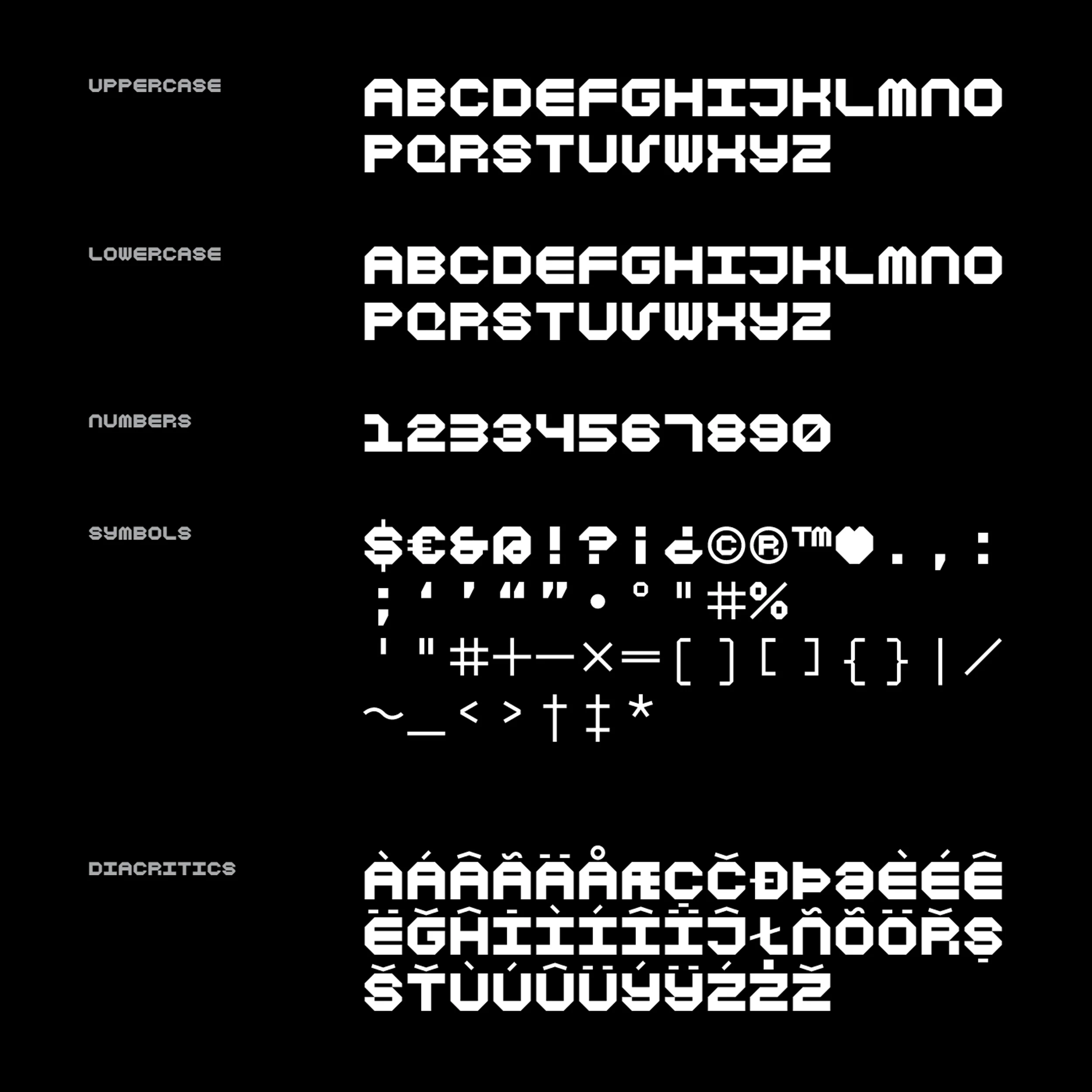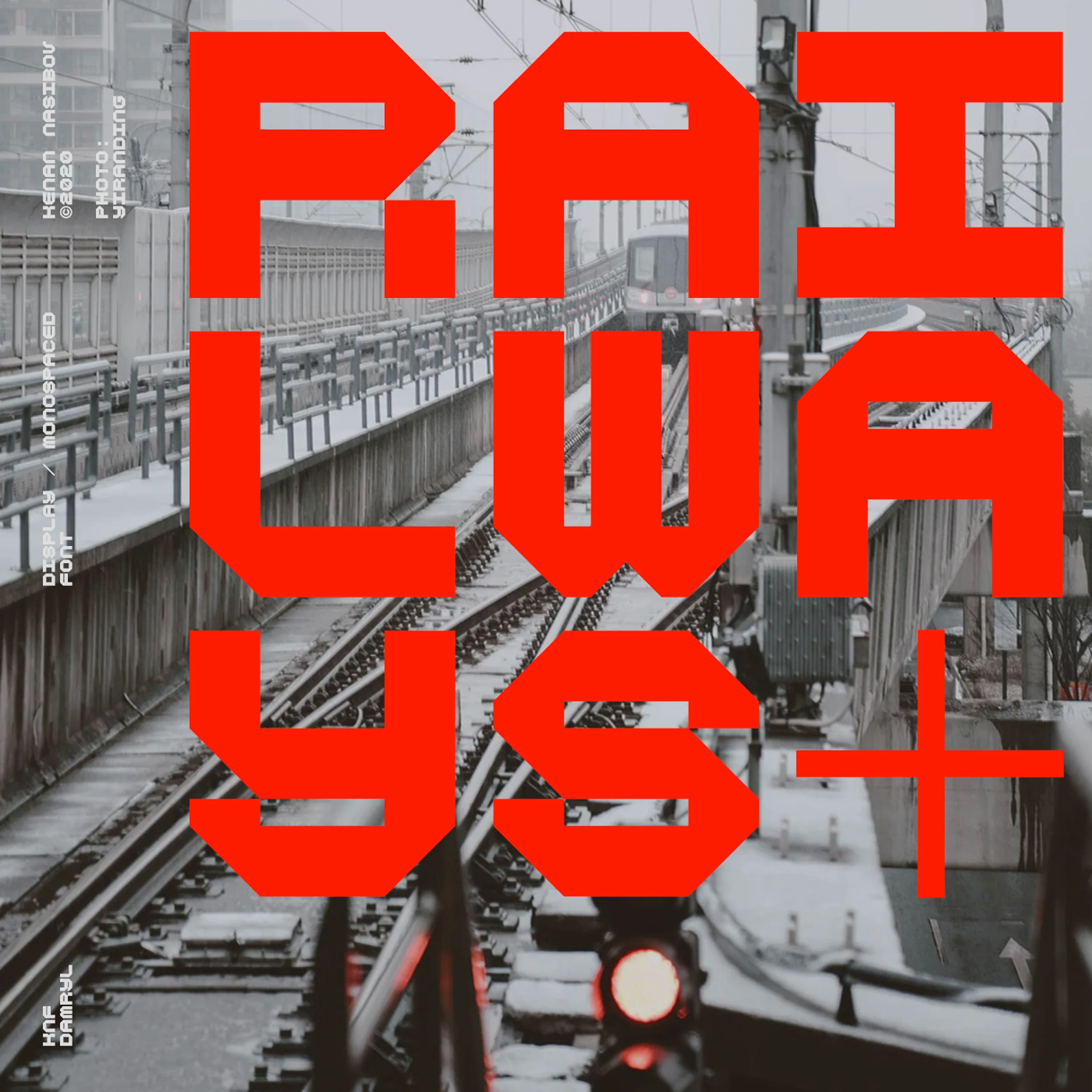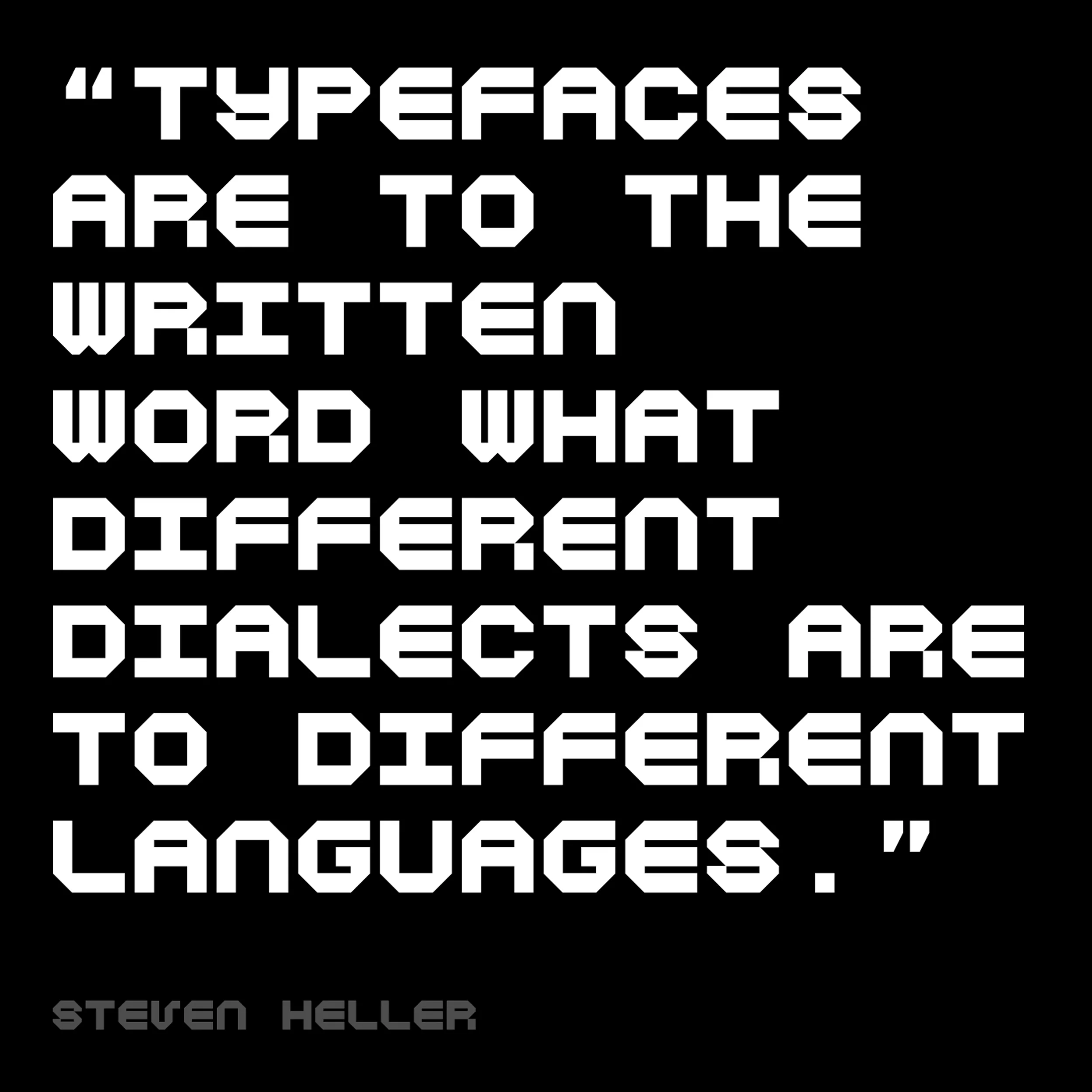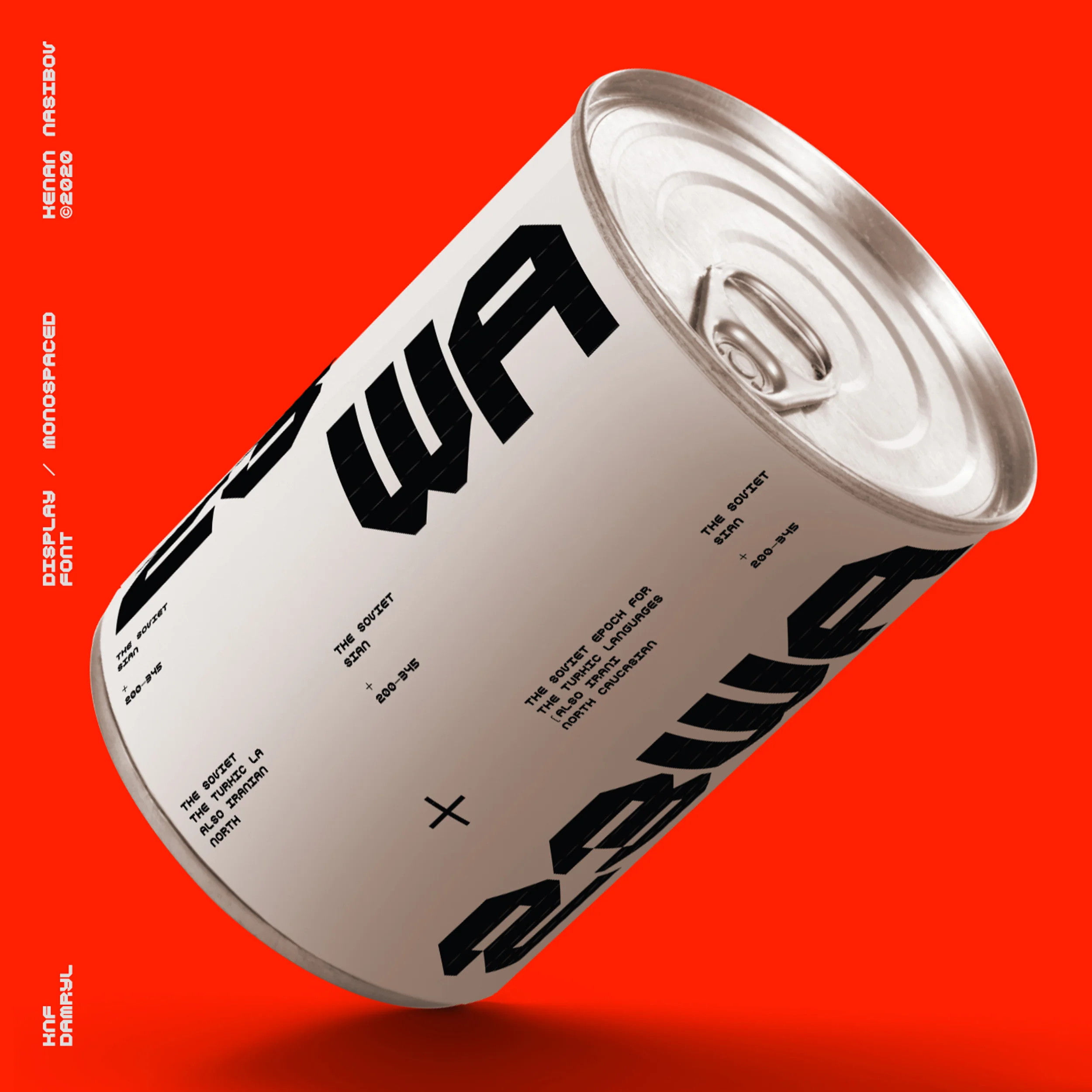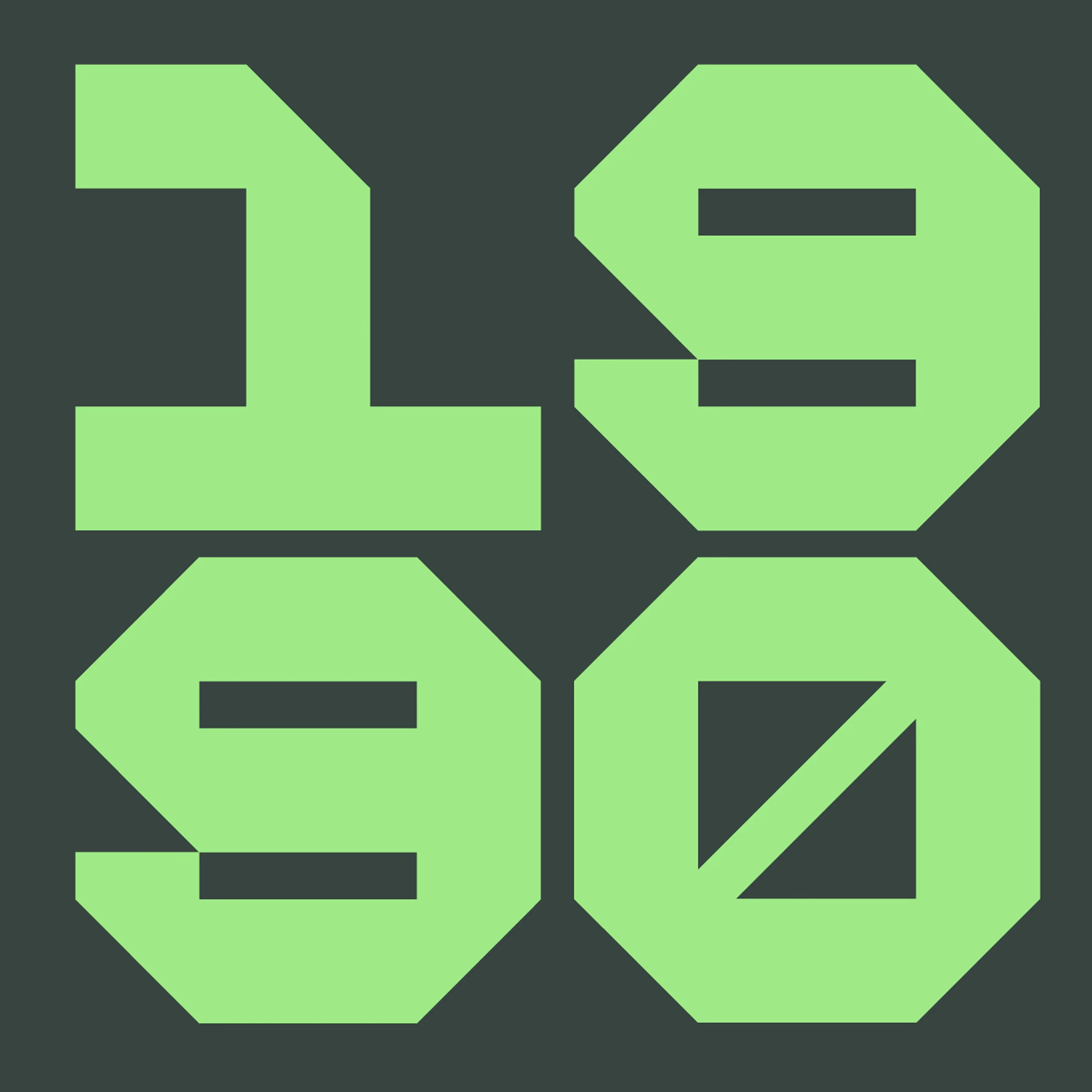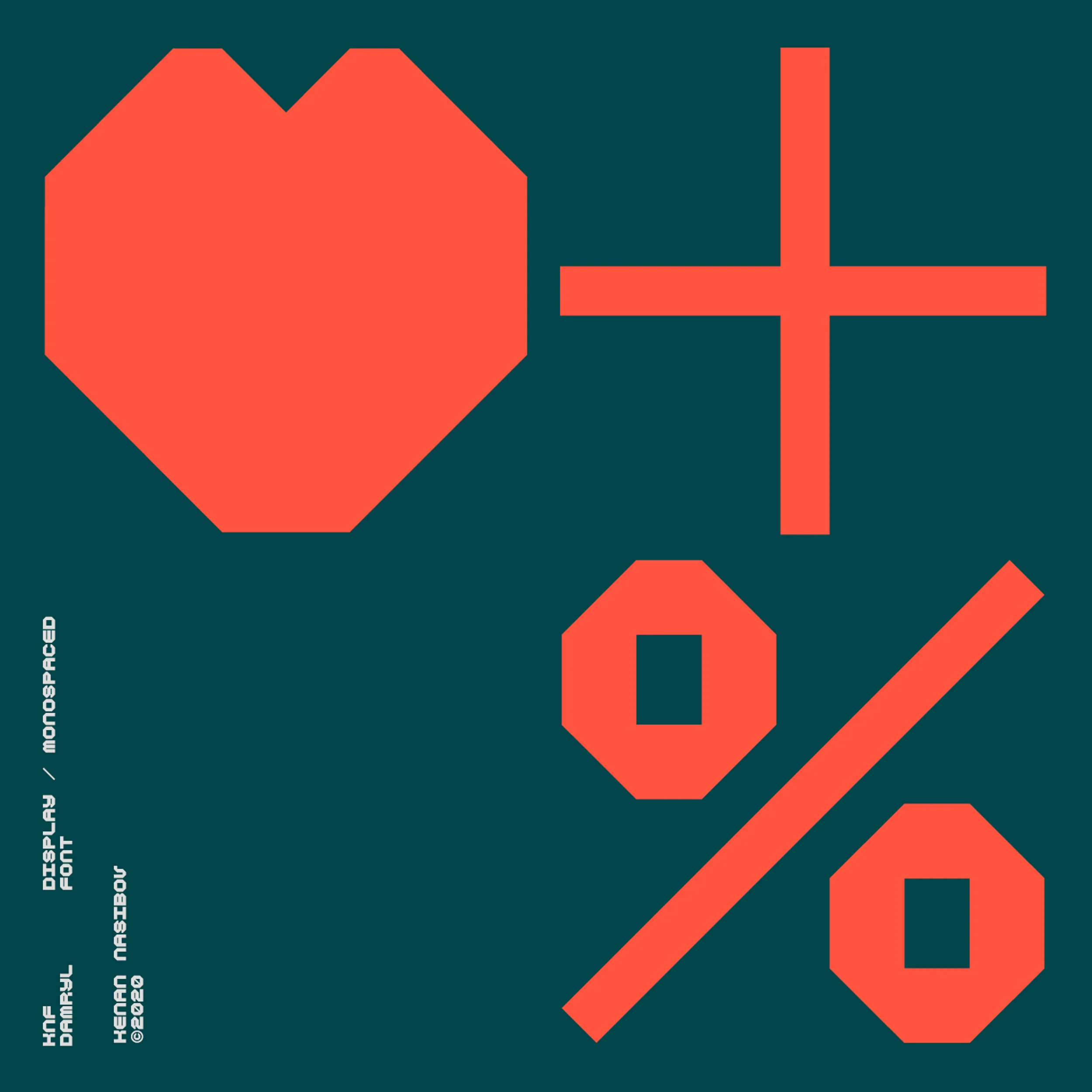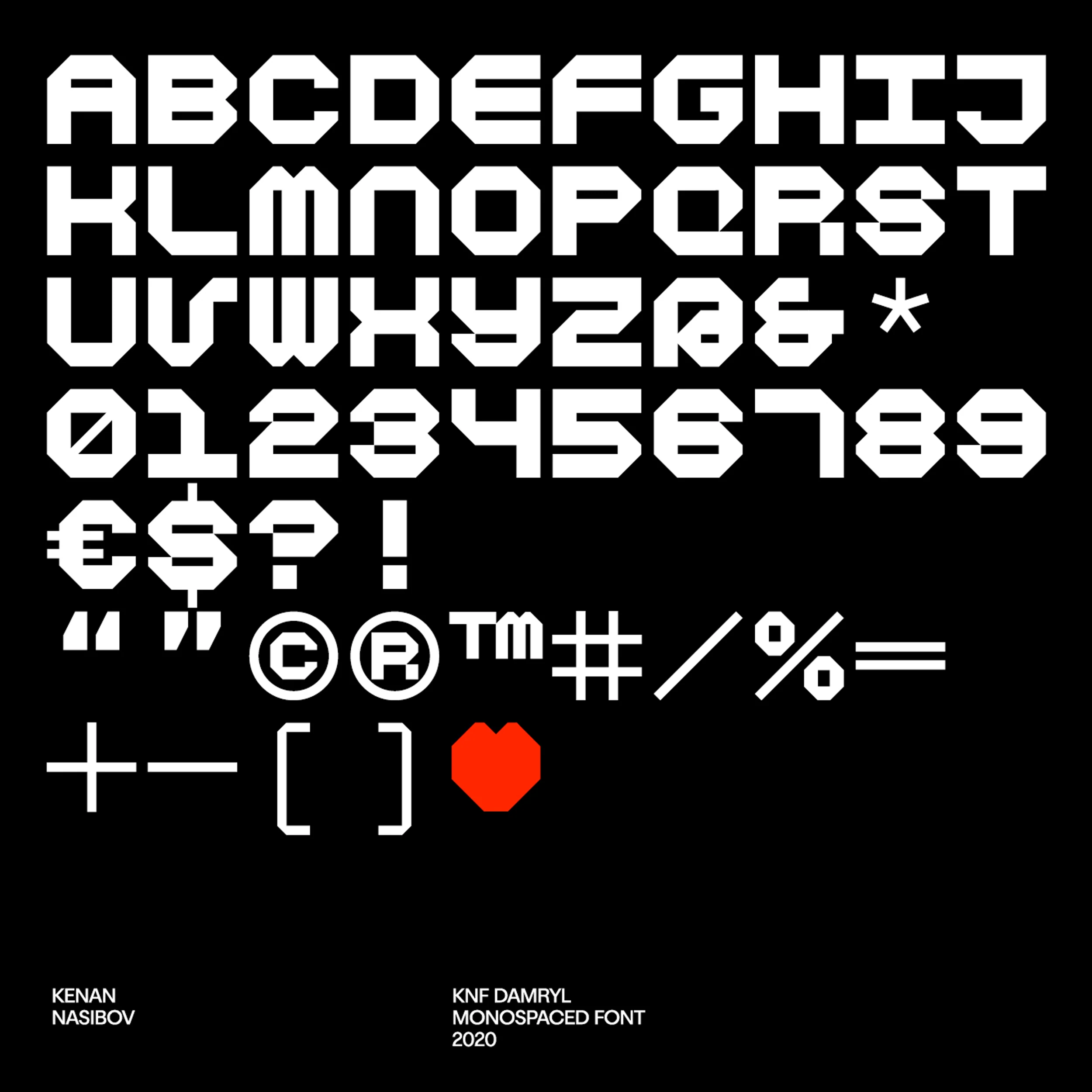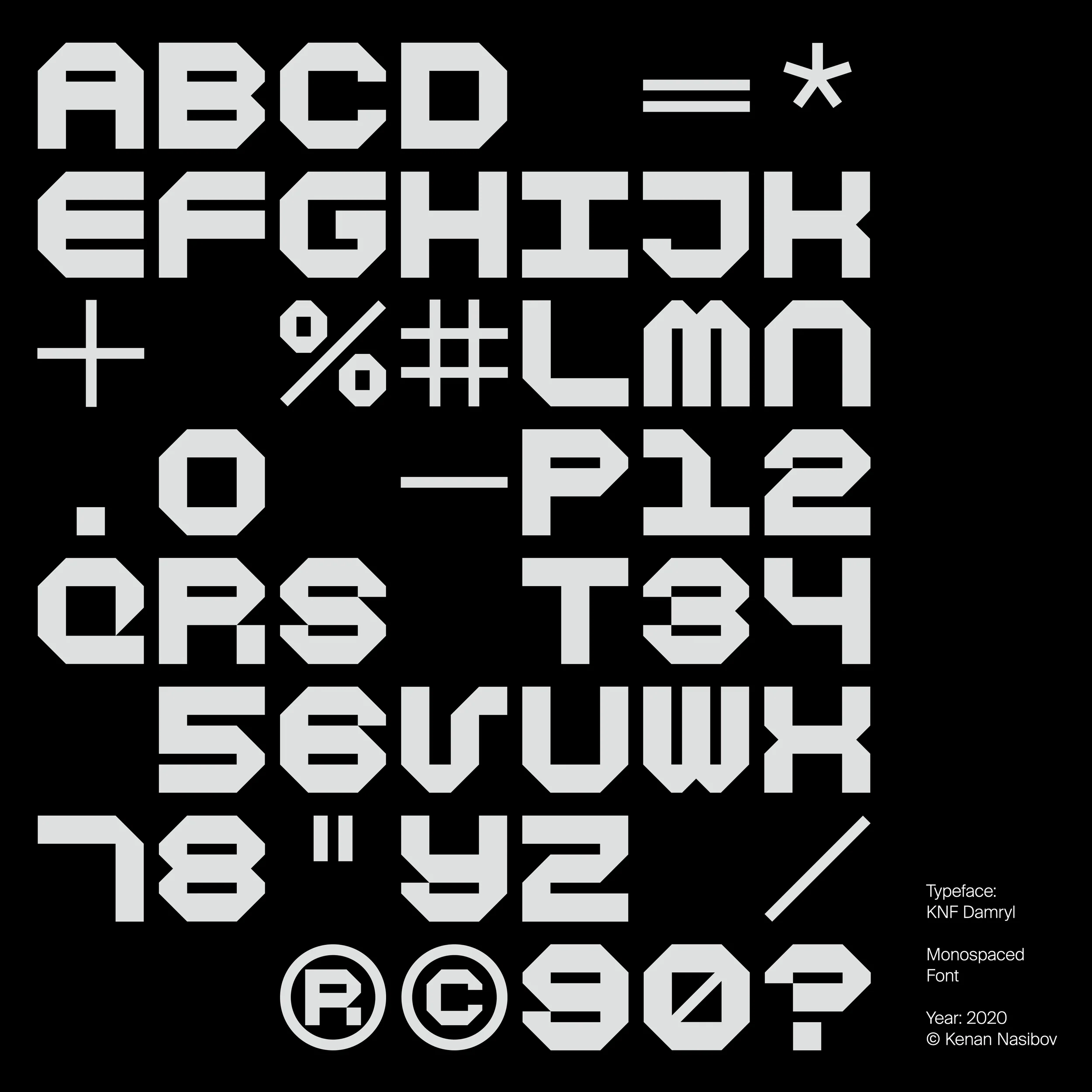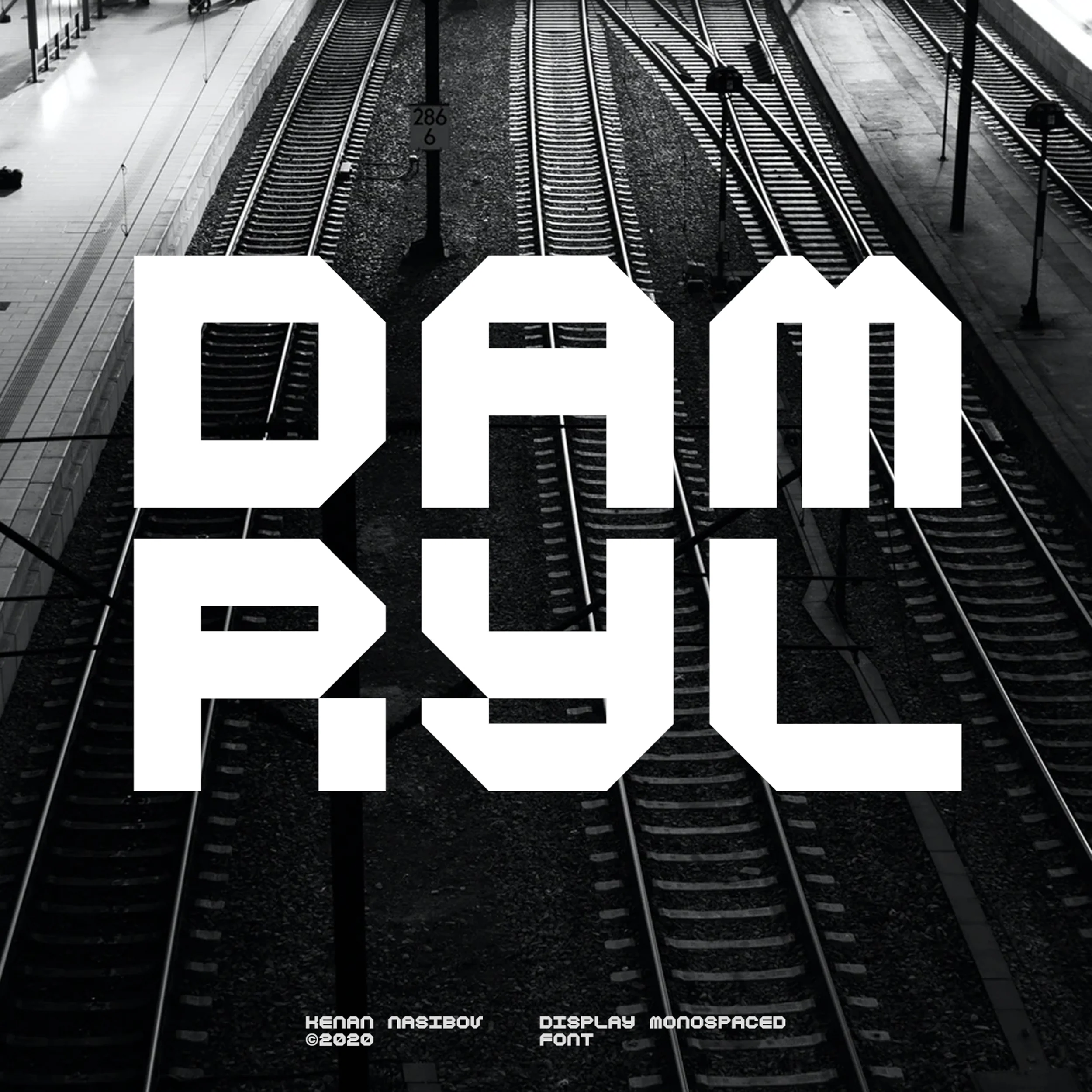
KNF Damryl
Inspired by the clean lines of geometric and postmodernist typefaces like Gridnik and FRAC, KNF Damryl strikes a balance between modernity and utilitarian elegance. Designed as a monospaced display font, KNF Damryl is particularly well-suited for bold headlines, eye-catching posters, impactful magazine layouts, and distinctive logos.
With its geometric simplicity and artful precision, KNF Damryl exudes a bold presence that commands attention. Its uniform letter spacing and clean, sans-serif forms ensure readability.
Inspired by the clean lines of geometric and postmodernist typefaces like Gridnik and FRAC, KNF Damryl strikes a balance between modernity and utilitarian elegance. Designed as a monospaced display font, KNF Damryl is particularly well-suited for bold headlines, eye-catching posters, impactful magazine layouts, and distinctive logos.
With its geometric simplicity and artful precision, KNF Damryl exudes a bold presence that commands attention. Its uniform letter spacing and clean, sans-serif forms ensure readability.